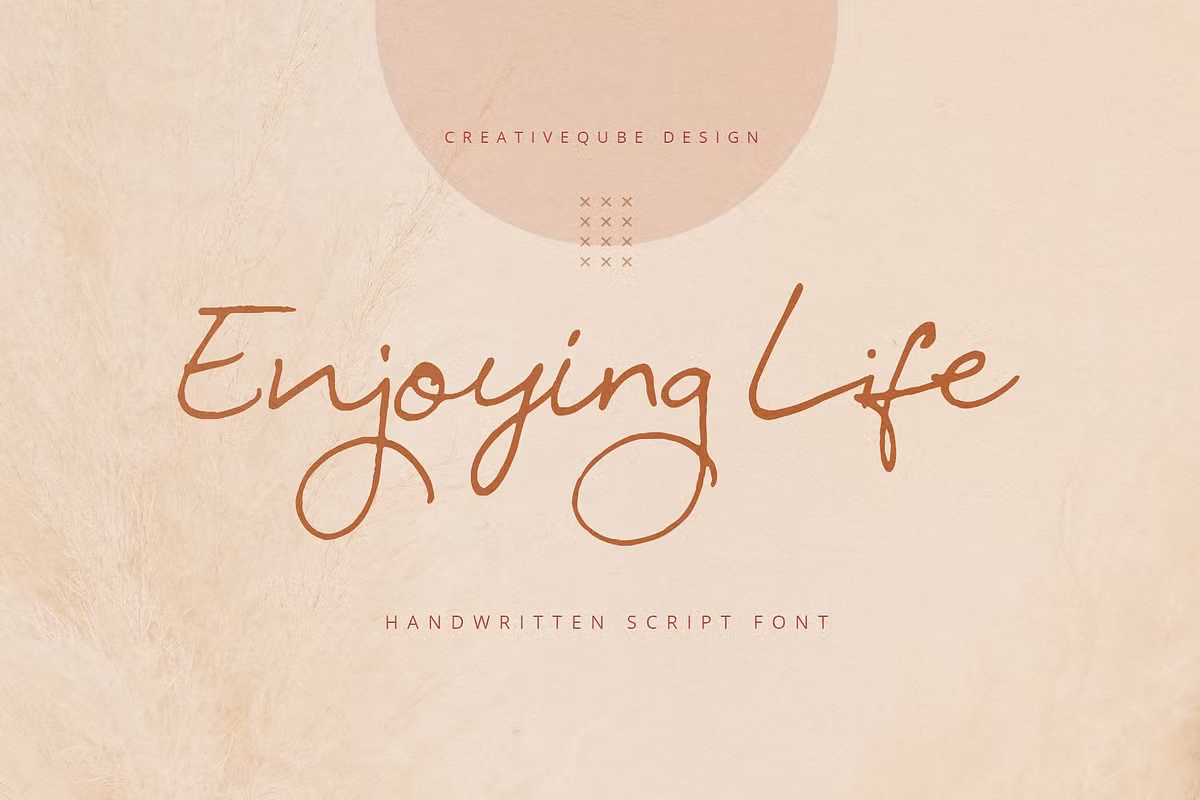
Enjoying Life Script Font Free Download
The Enjoying Life Script Font Free Download is a beautiful, flowing script font that brings a relaxed, elegant touch to your designs. With its smooth curves and sophisticated letterforms, this font is perfect for creating logos, invitations, greeting cards, and other projects that require a personal and stylish touch. Its delicate, handwritten style gives it a friendly and charming vibe, making it ideal for both casual and professional designs. Please note, for commercial use, a license purchase is required. However, you can easily download the Enjoying Life Script Font Free Download for free for personal use and test its beauty in your projects. Whether you’re working on wedding designs, branding, or creative projects, this font will add a warm and inviting feel to your typography. Download the Enjoying Life Script Font Free Download today and elevate your designs with elegance and charm.